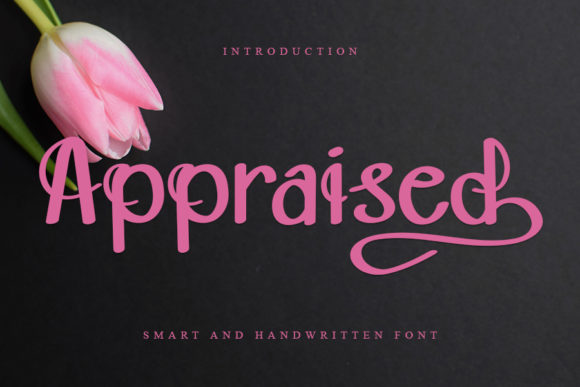
About Appraised Font
Appraised is a cool, trendy and neat handwritten font. Simple but with a strong visual effect, this font will instantly make your creation more appealing than any others.